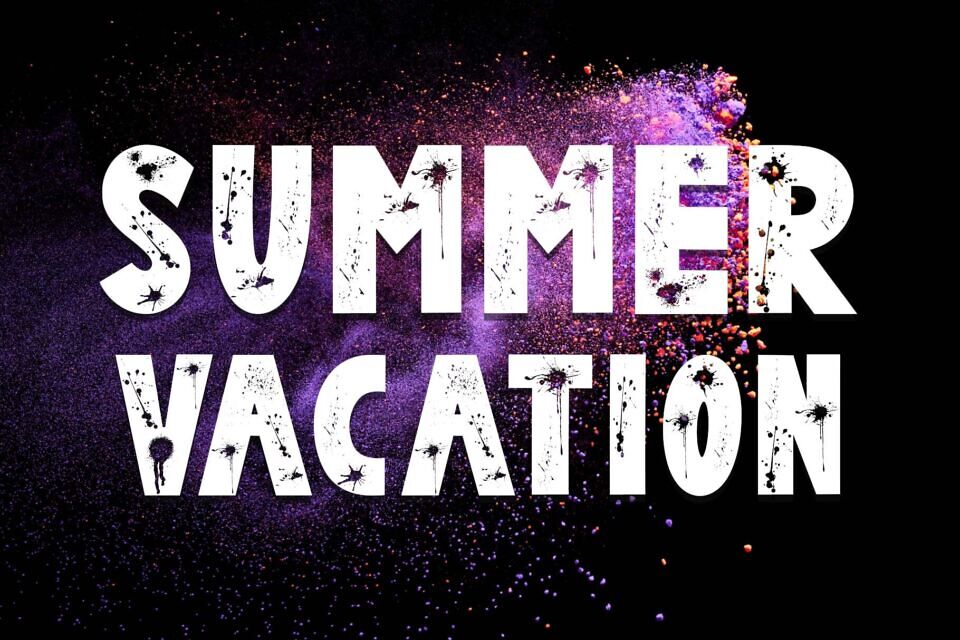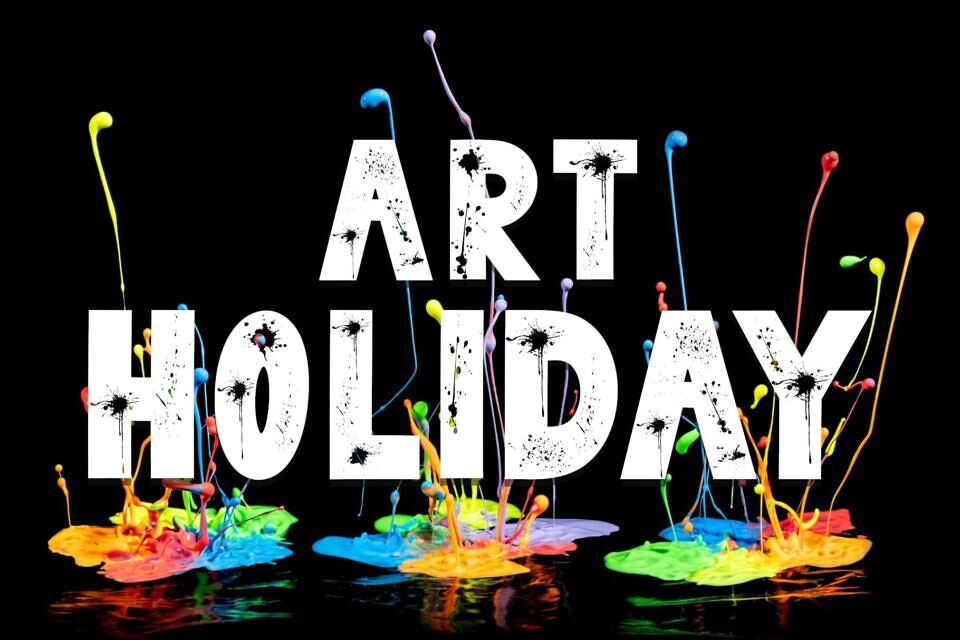
Bomber Spray is a bold display font bursting with street art attitude and urban edge. With splattered ink textures and graffiti-inspired details, this font brings energy, rebellion, and creativity to your designs.
Perfect for posters, album covers, streetwear branding, event flyers, and anything that needs a bold visual punch. It’s loud, raw, and ready to make a statement.